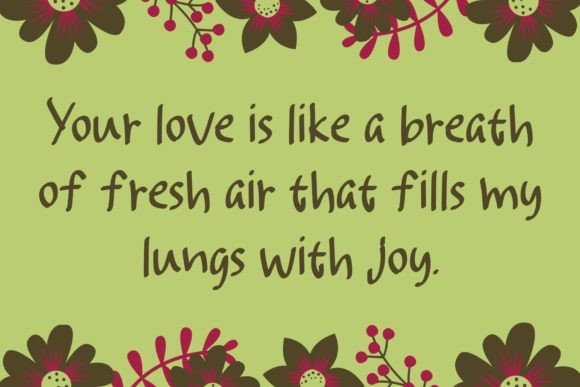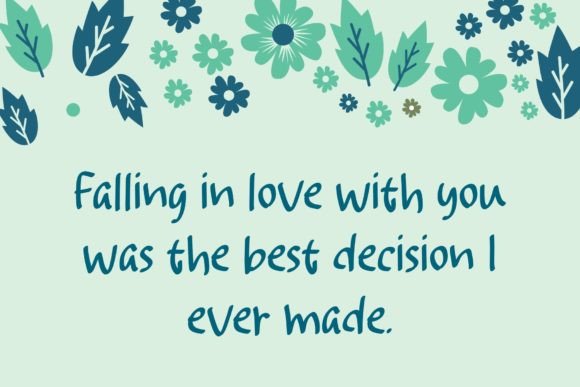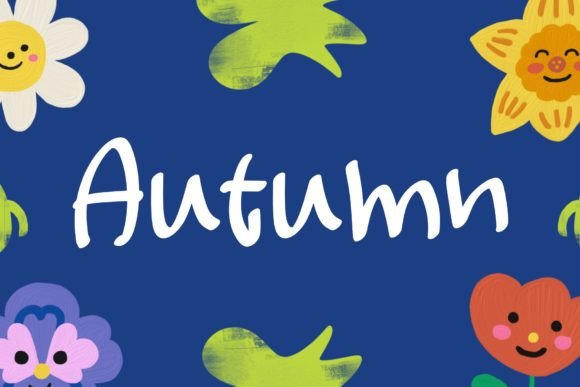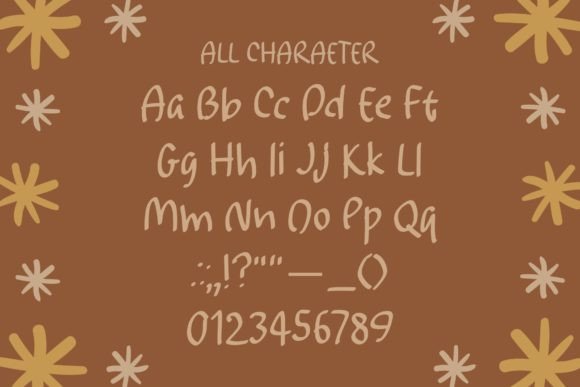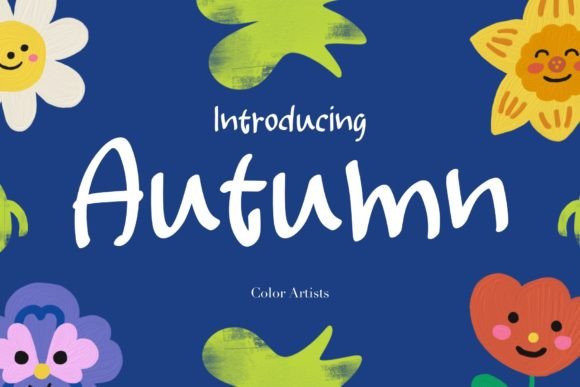
Embracing the Warmth of Autumn with the Captivating Autumn Font
As the leaves change color and a gentle breeze fills the air, it’s time to welcome the enchanting season of Autumn. And what better way to capture its essence than with the captivating Autumn Font? This typeface beautifully embodies the spirit of fall, bringing a touch of warmth and nostalgia to your designs.
The Essence of Autumn in Typography
The Autumn Font is more than just a typeface; it’s an experience. It encapsulates the cozy feelings and vibrant colors that define the autumn season. With its unique and elegant design, this font adds a personal touch to any project, making it perfect for a variety of applications, from invitations and posters to blog headings and social media graphics.
Why Designers and Crafters Love Autumn Font
Designers and crafters adore the Autumn Font for its versatility and aesthetic appeal. Here are a few reasons why it has become a favorite among creative professionals:
• Warm and Inviting: The font’s design evokes a sense of warmth and comfort, making it ideal for creating autumn-themed content that resonates with audiences.
• Elegant and Readable: Its elegant strokes and highly readable letters ensure that your message is conveyed with style and clarity, whether used for headings or body text.
• Versatile: From digital platforms to print materials, the Autumn Font seamlessly integrates into various design projects, offering flexibility and consistency across different mediums.
Creative Applications of Autumn Font
The Autumn Font can elevate a multitude of design projects, making them stand out with its distinctive charm. Here are some creative ways to use this captivating typeface:
• Autumn-themed Invitations: Add a personal and festive touch to your fall invitations, whether you’re planning a harvest party, a Thanksgiving dinner, or simply want to share your love for the season.
• Fall Blog Posts and Social Media Graphics: Enhance your content with a seasonal flair, making your blog posts and social media updates more engaging and visually appealing.
• Posters and Flyers: Create stunning posters and flyers for autumn events, sales, or promotions that capture the attention of your audience.
• DIY Projects and Crafts: Incorporate the Autumn Font into your handmade crafts, such as greeting cards, scrapbooking, and other paper crafts, to give them a professional and personalized look.
Tips for Using Autumn Font Effectively
To make the most of the Autumn Font in your designs, consider the following tips:
• Pair with Complementary Fonts: Combine the Autumn Font with simple, sans-serif fonts for body text to create contrast and visual interest.
• Experiment with Colors: While earthy tones complement the Autumn Font well, don’t be afraid to experiment with vibrant colors to match your brand or project’s aesthetic.
• Adjust Size and Weight: Play with different sizes and weights of the Autumn Font to create hierarchy and emphasis in your designs.
In conclusion, the Autumn Font is a versatile and captivating typeface that can add a touch of warmth and elegance to your designs. Whether you’re a designer, crafter, or simply someone who loves the autumn season, this font is sure to inspire your creativity and help you create stunning projects that capture the essence of fall.